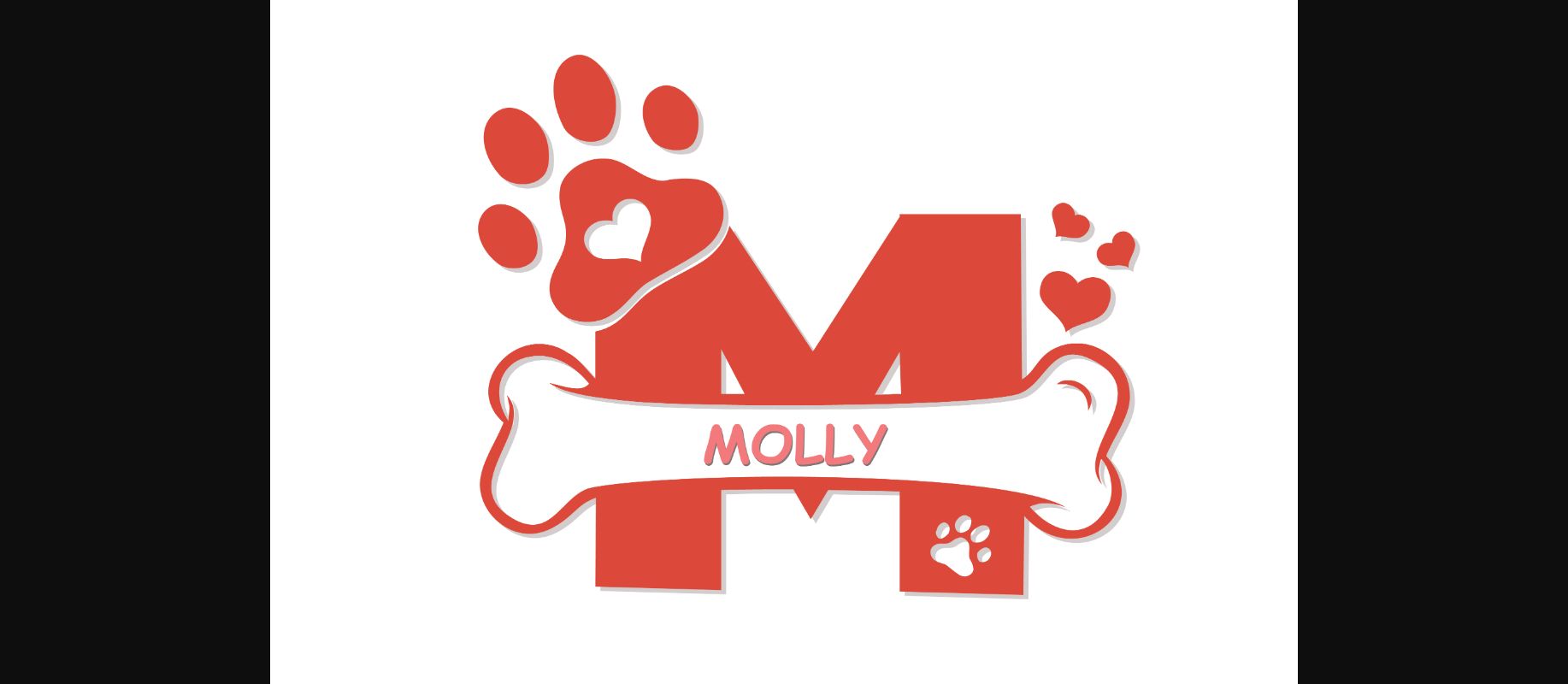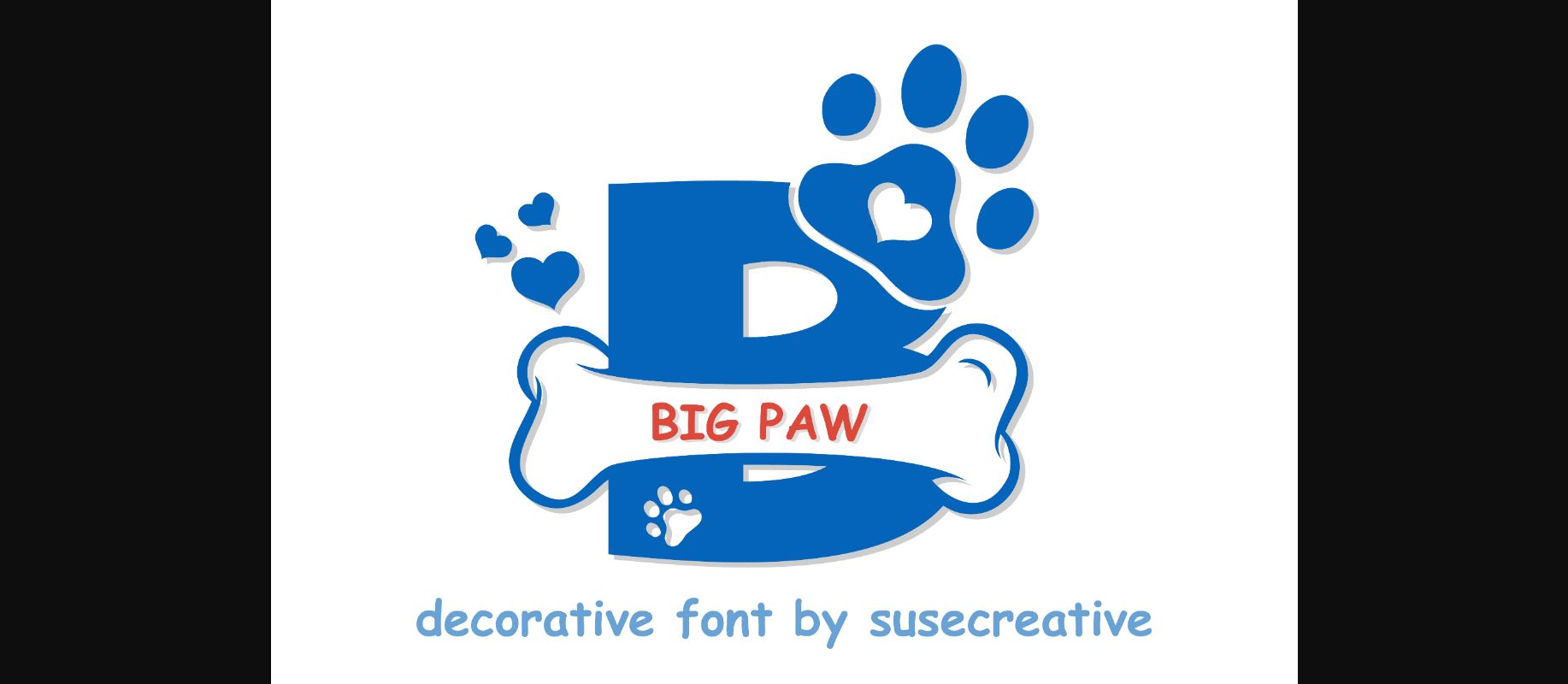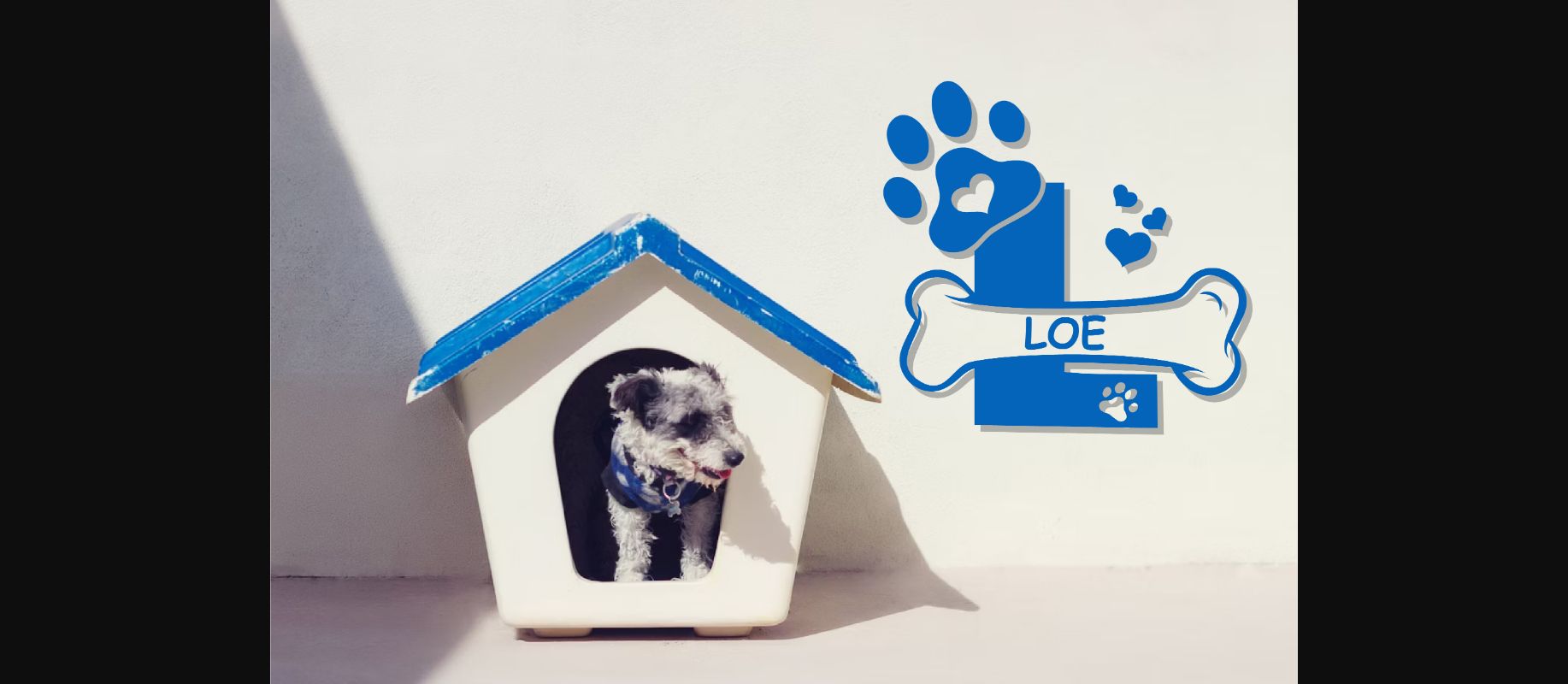
About Big Paw Font
Big Paw is an adorable font perfect for dog lovers! Whether you’re designing posters, t-shirts, mugs, kids’ projects, planners, stickers, or home decoratino, Big Paw adds a touch of fun and charm to any project. Its playful style makes it a delightful choice that you’re sure to love!